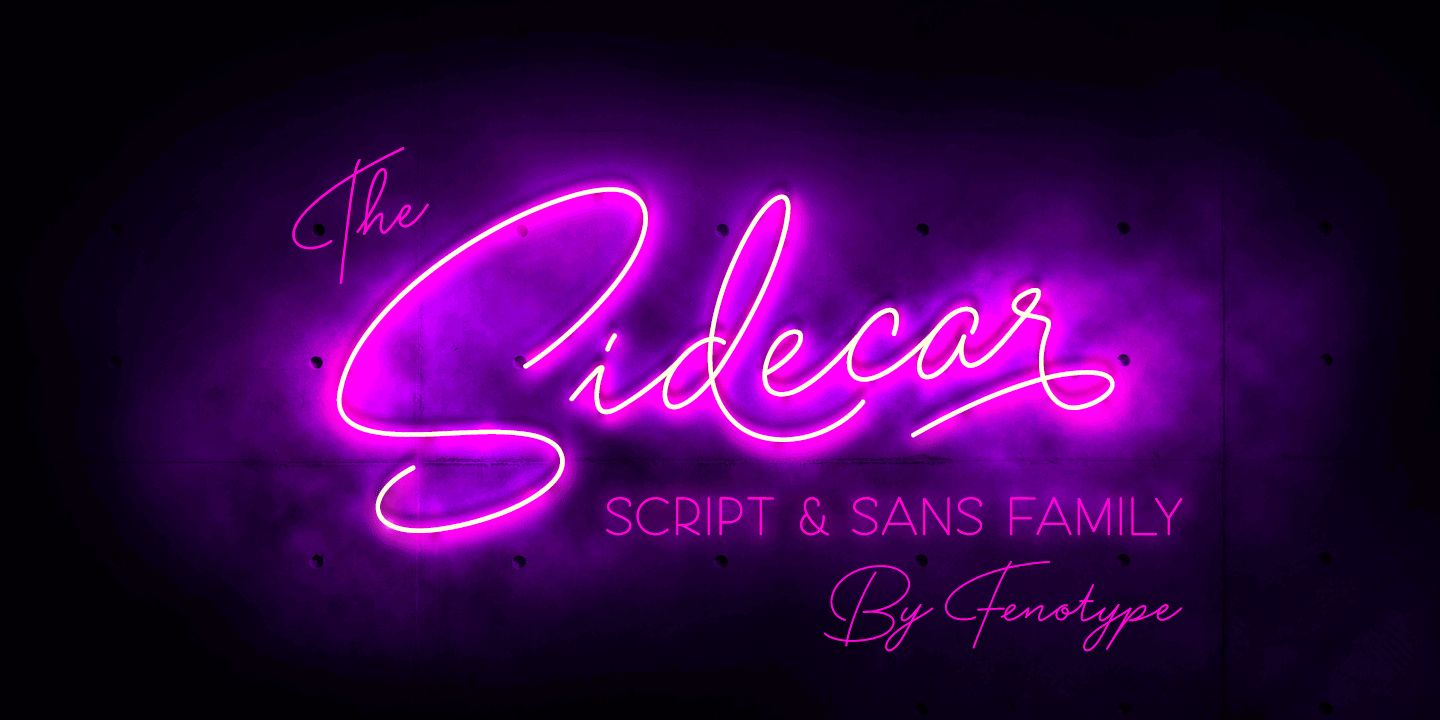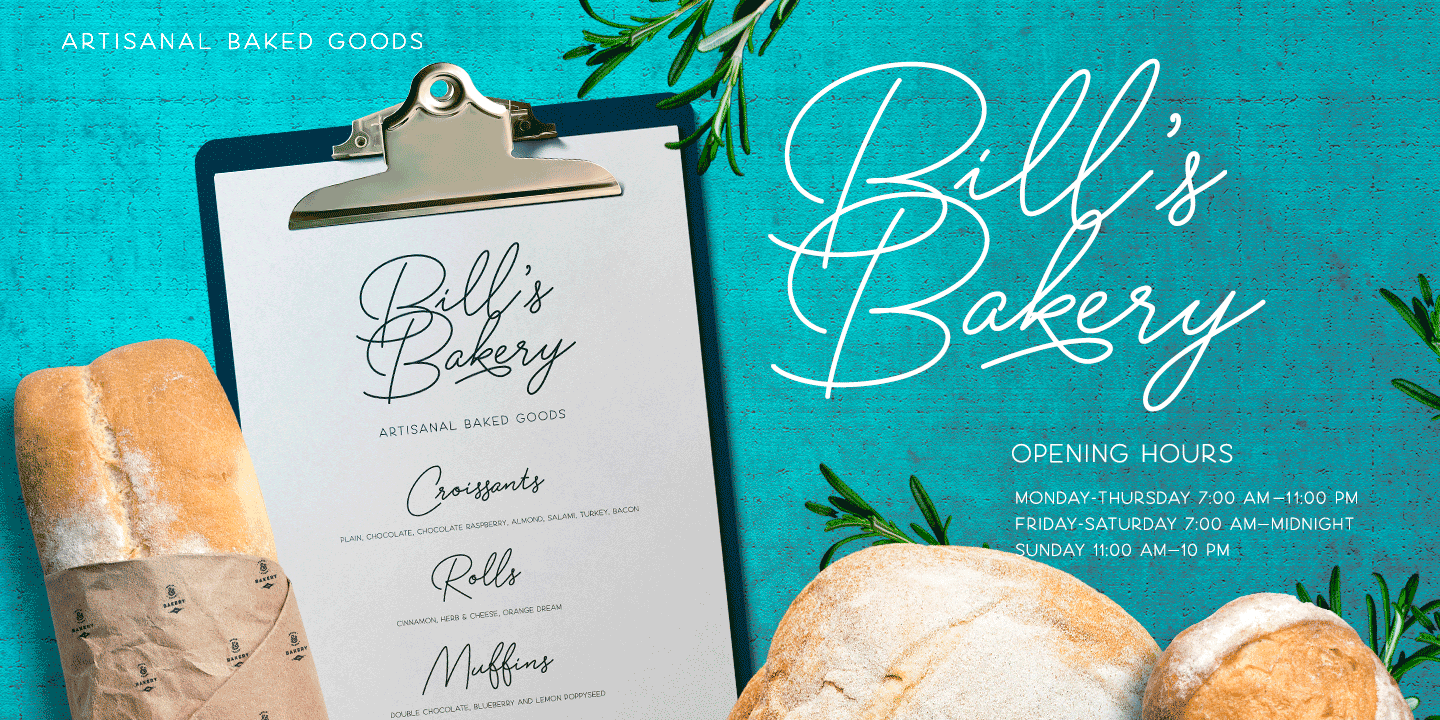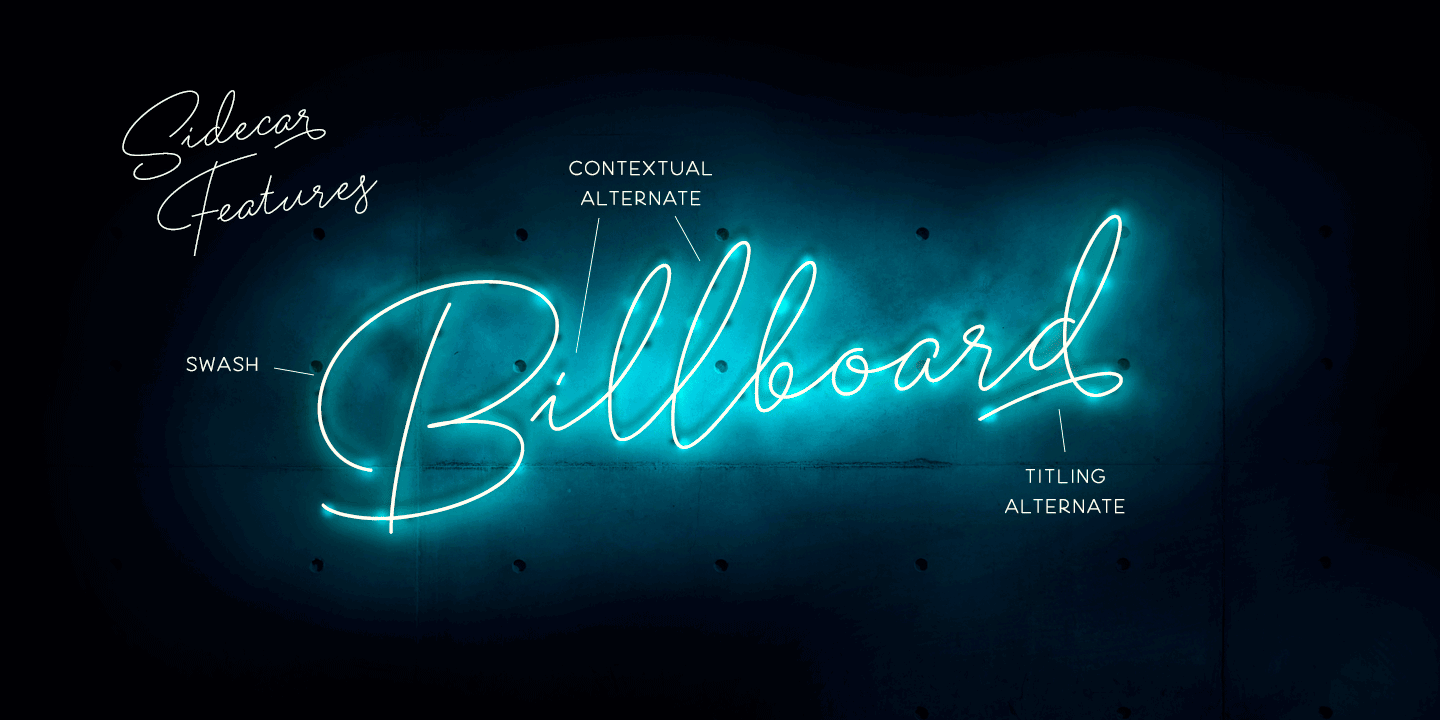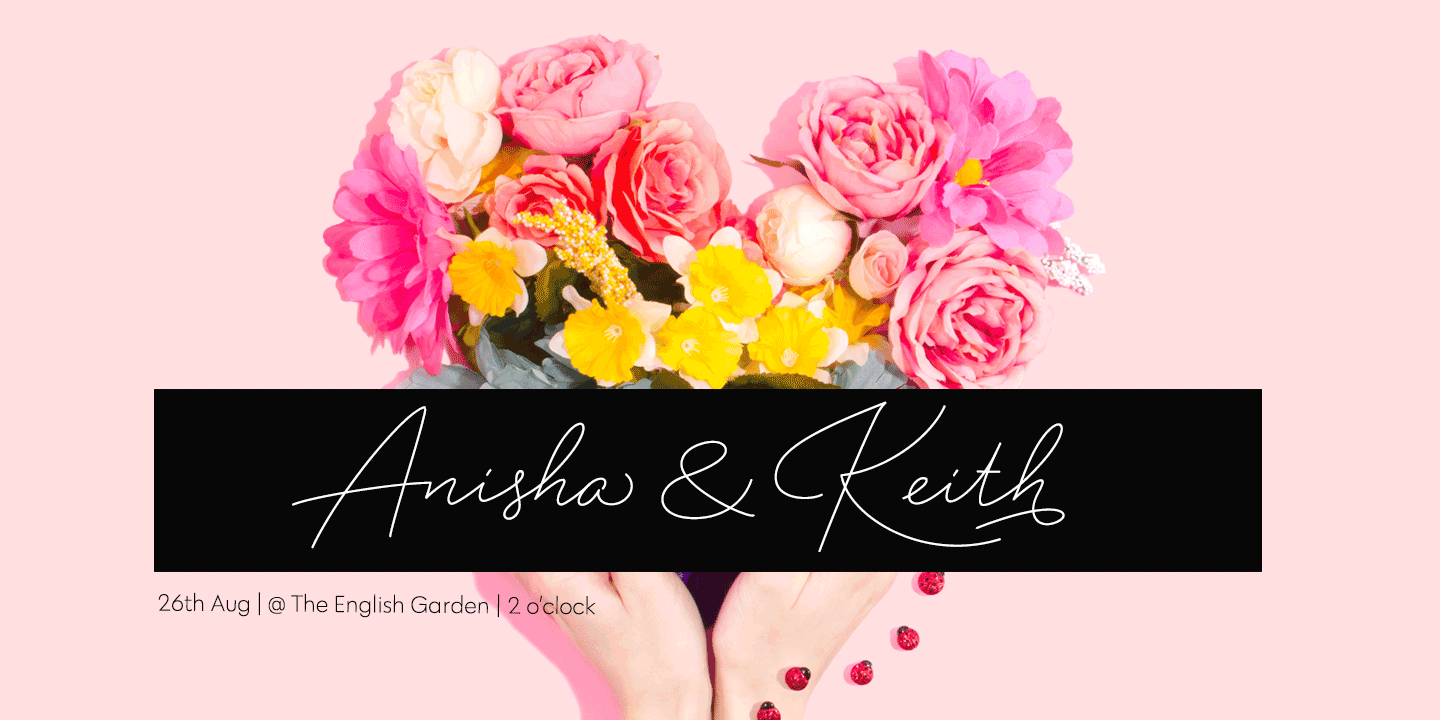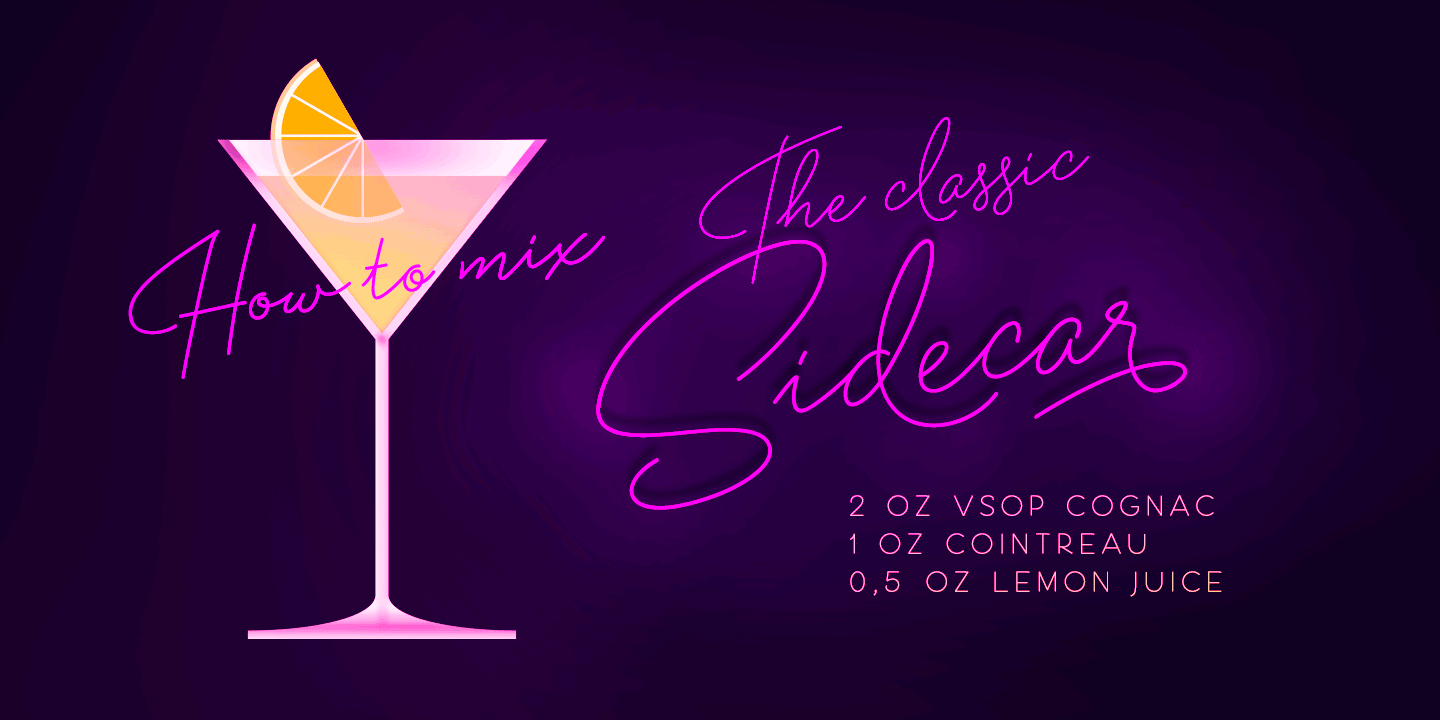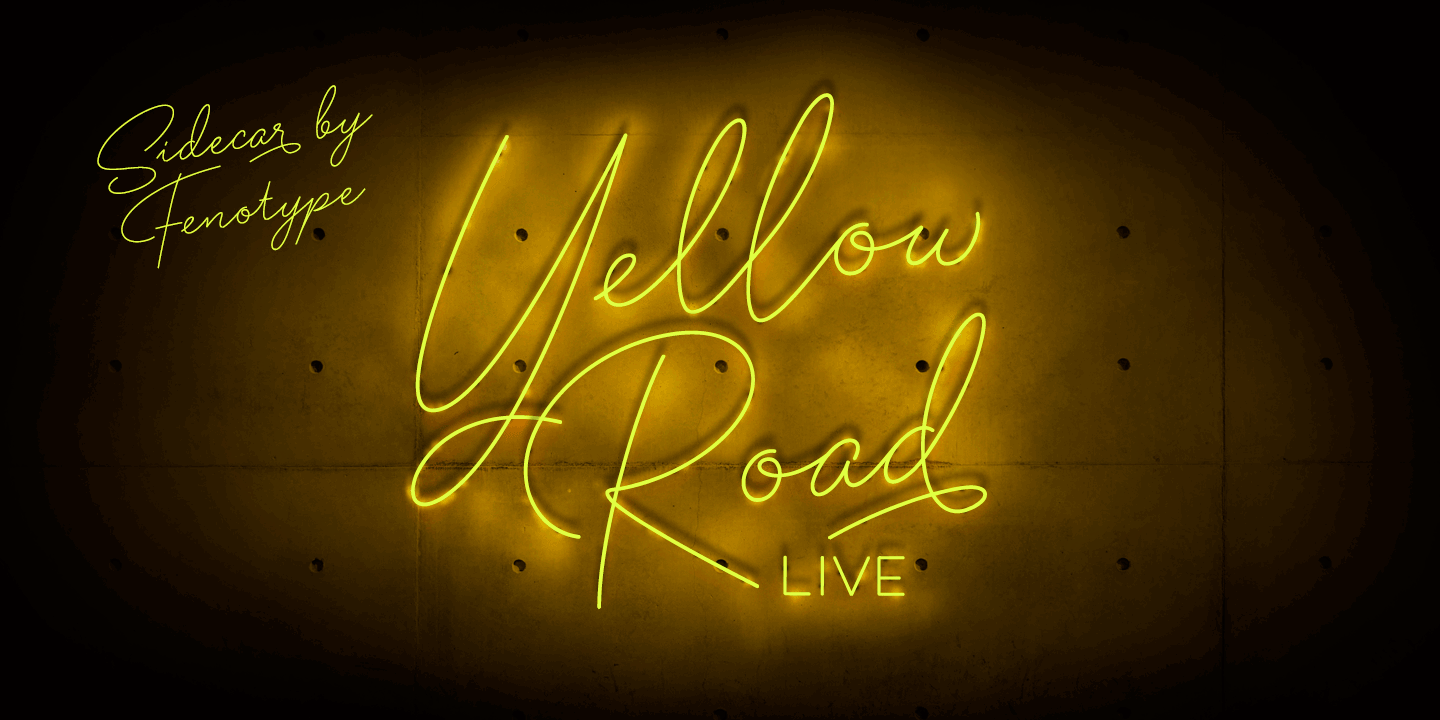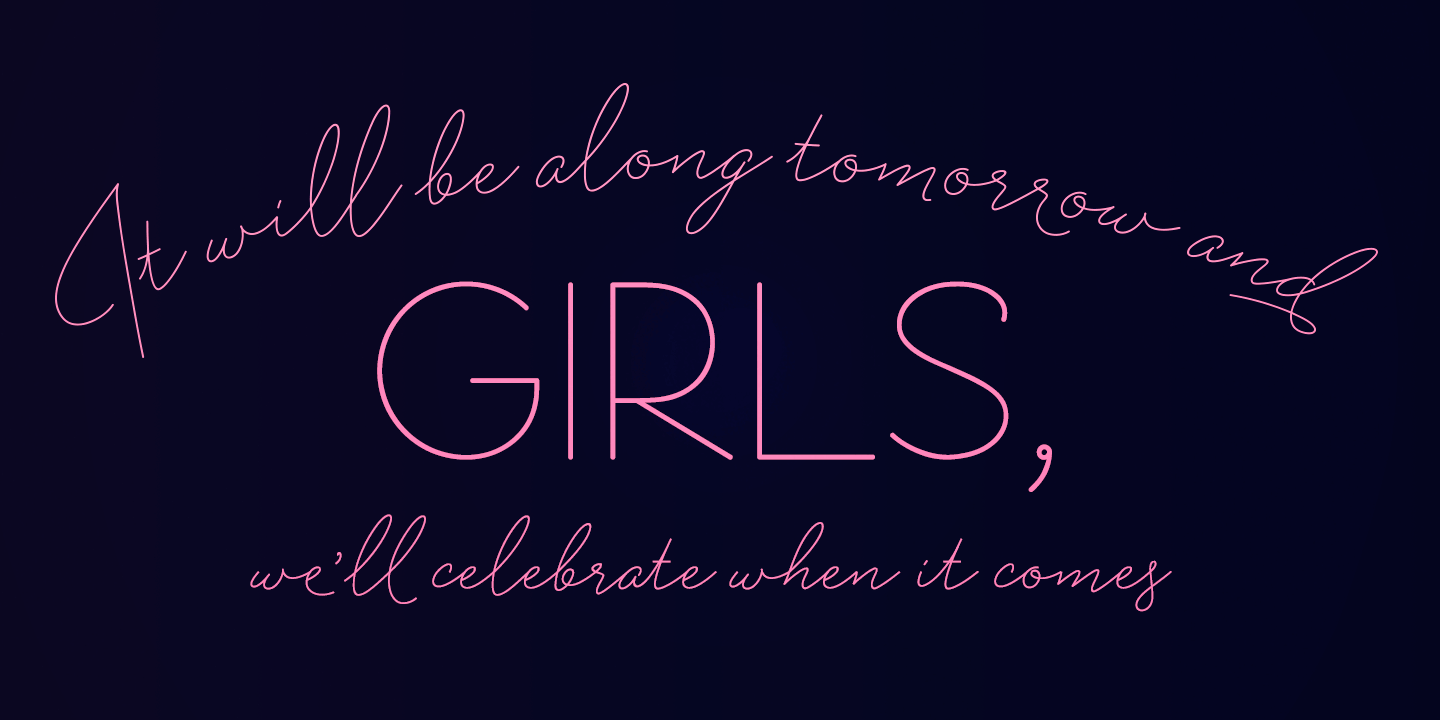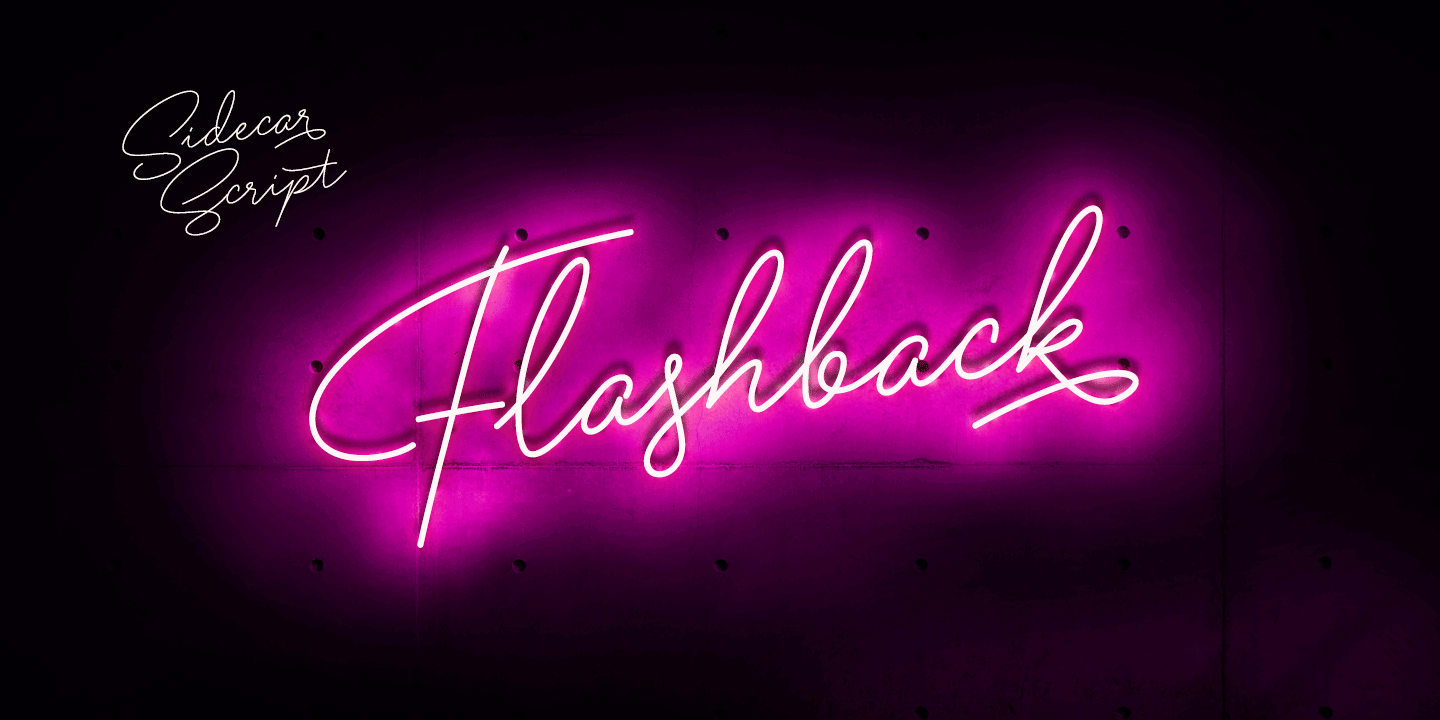
Sidecar
Font Family by Fenotype
Sidecar is an elegant monoline font family of four weights of Script and Sans. Sidecar Script and Sans are designed to play together but they also work great on their own.
Sidecar Script is packed with OpenType alternates: keep Contextual Alternates on for smooth flow and try Swash or Titling Alternates for more flashy letters. From Discretionary Ligatures you'll find Ordinal Suffixes (st, nd, rd, th).
Sidecar is a great display family for any project from logo to packaging or actual neon sign design and from print to online!